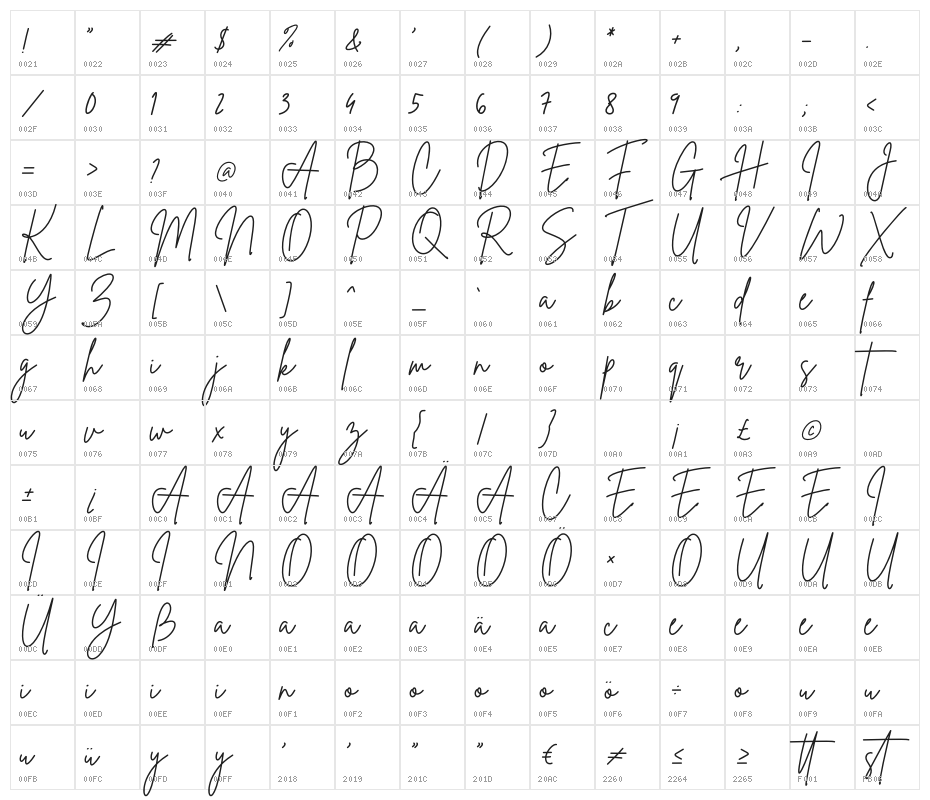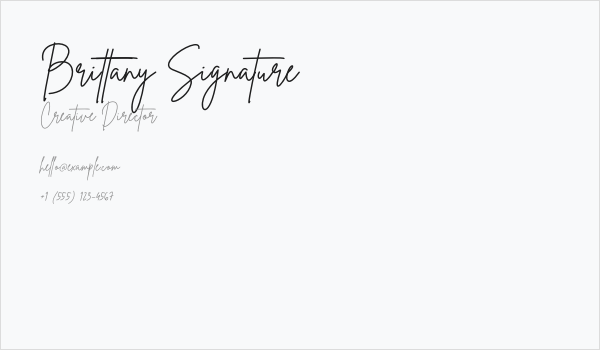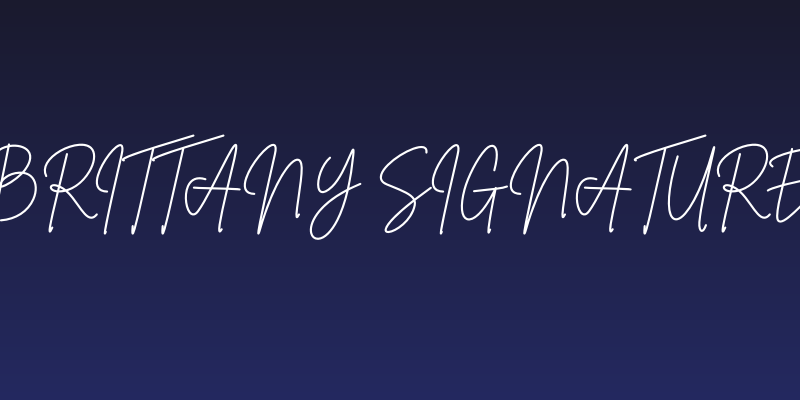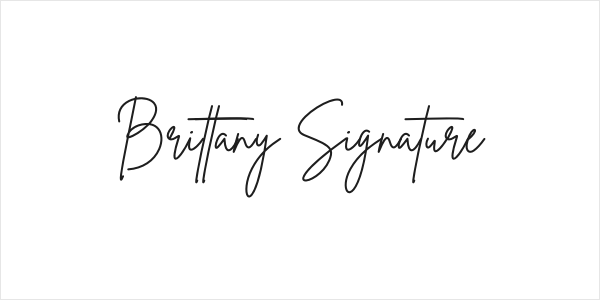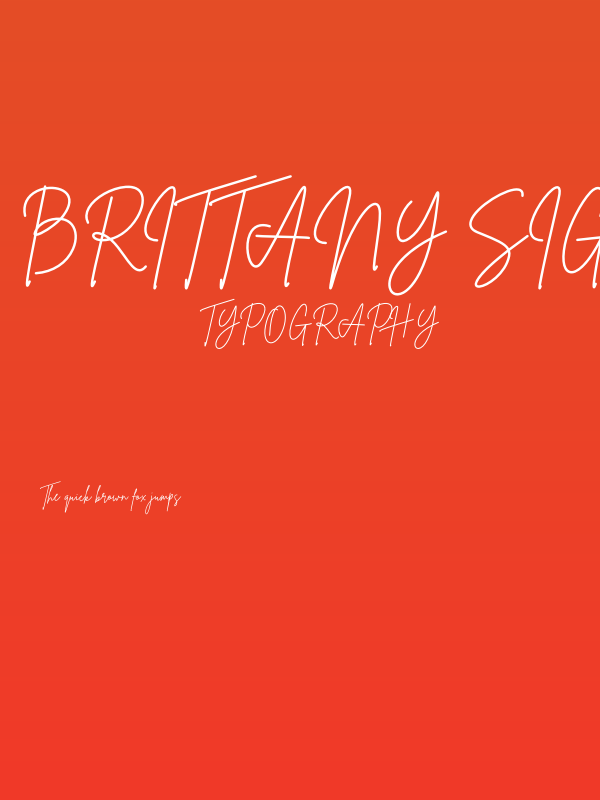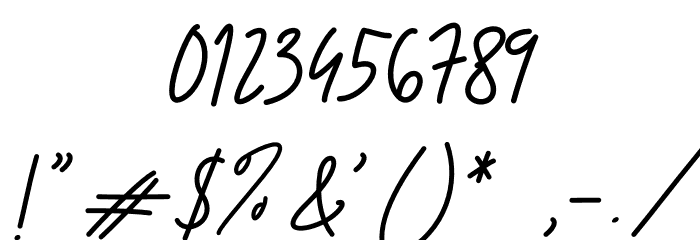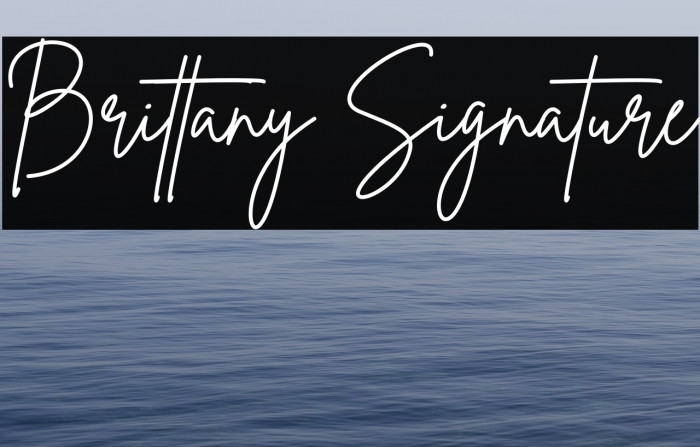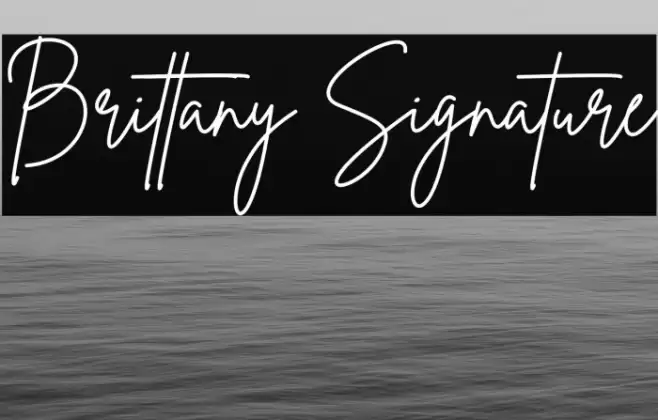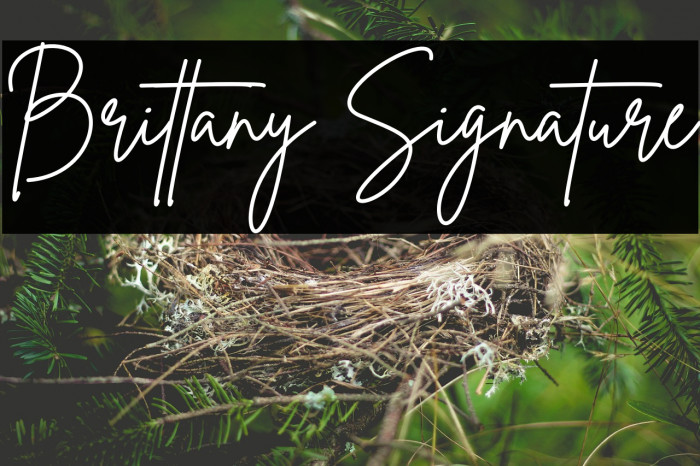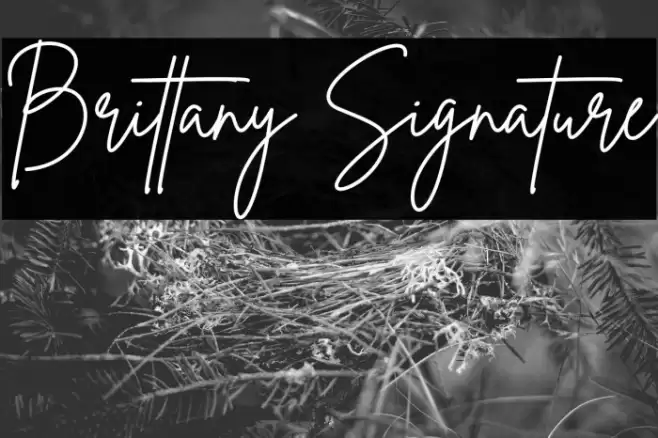
Brittany Signature Font
Brittany Signature Description
This font exhibits a fluid and elegant handwritten style, characterized by its flowing script and natural, cursive strokes. The uppercase letters are tall and slender, with a slight slant that adds a dynamic feel. Lowercase letters maintain a consistent flow, connecting smoothly in a manner reminiscent of personal handwriting. The numerals are clear and legible, maintaining the same cursive style, while special characters integrate seamlessly with the overall aesthetic. The font's design captures a sense of personal touch and sophistication, making it ideal for projects that require a personal or artistic flair.
| Overall Style | Elegant, Artistic |
| Use Case | Logos, Invitations, Personal Branding |
| Proposed Projects | Ideal for wedding invitations, personal branding, greeting cards, and artistic projects. |